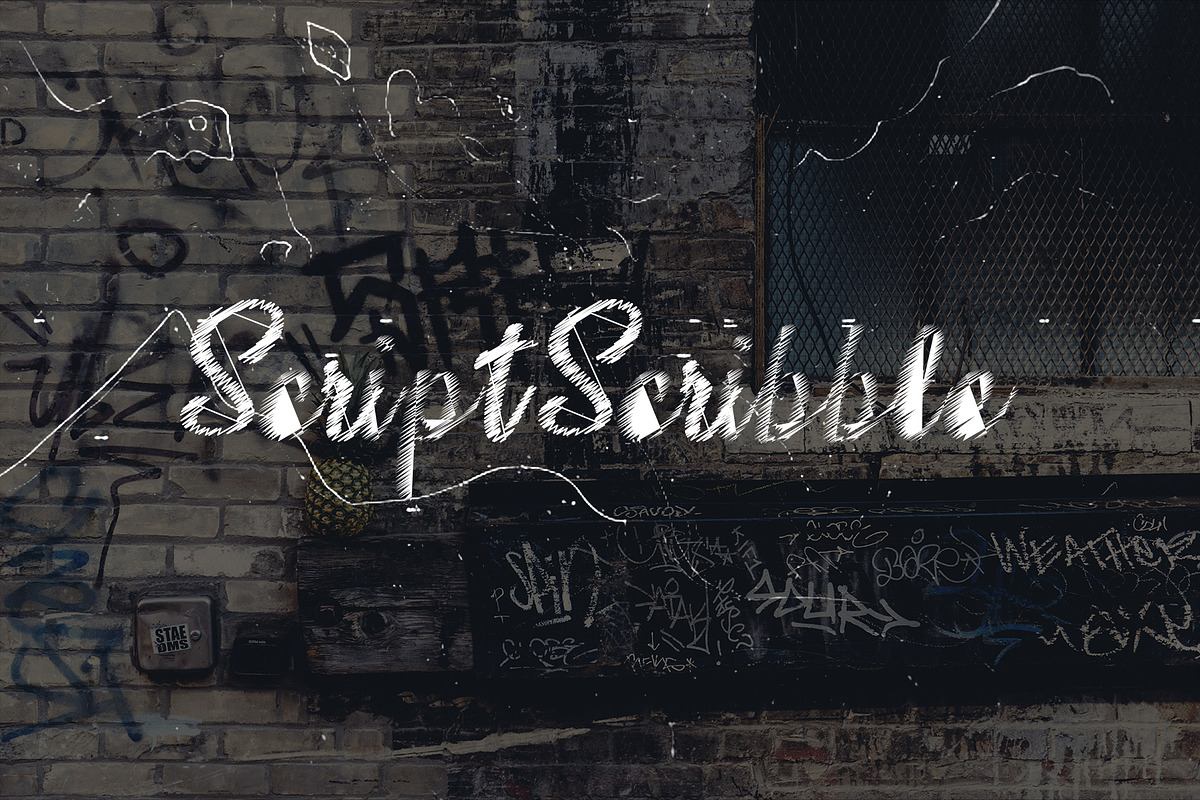
Script Scribble Font Free Download is a wild, expressive handwritten typeface that captures the raw energy of a quick sketch or spontaneous note. With its loose strokes, irregular flow, and authentic scribble feel, this font is perfect for edgy branding, artistic posters, album covers, zines, and creative content that thrives on personality and chaos.
Whether you're channeling punk rock vibes, diary-style authenticity, or street-art grit, Script Scribble delivers an unfiltered look that feels bold and real. It’s ideal for designers who want to break the rules and inject emotion into their typography.
Messy, dynamic, and full of life—this font doesn’t whisper; it shouts.